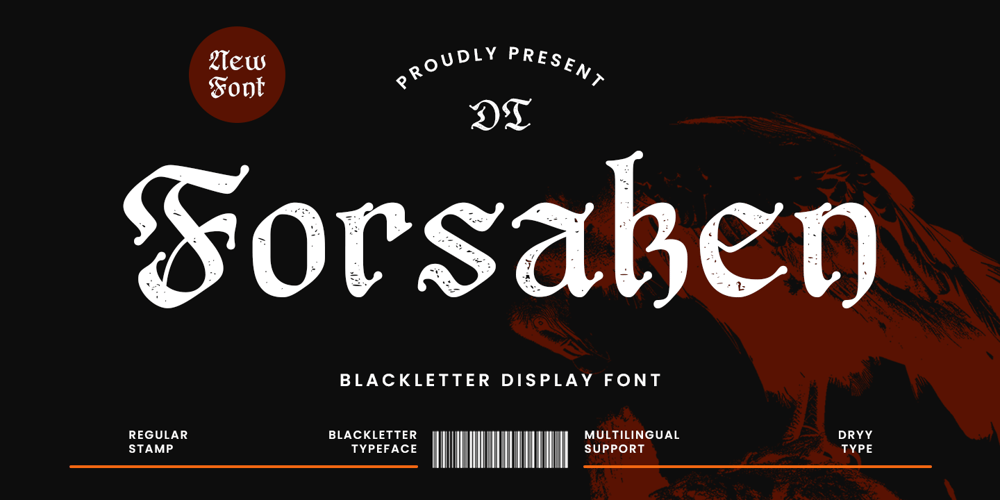
DT Forsaken Font Family was designed by Rian Dryana and published by Dryy Type. DT Forsaken contains 2 styles and family package options. Forsaken Typeface is inspired by someone who was abandoned by the one who just took his heart. This font I created is meaningful & very versatile, fits various designs, elevating them to the highest level. Add this font to your favorite creative ideas and see the results!Features : Uppercase, Lowercase, Numeric, Ligatures, Alternates & Multilingual Support4 Font style : – Regular – Stamp